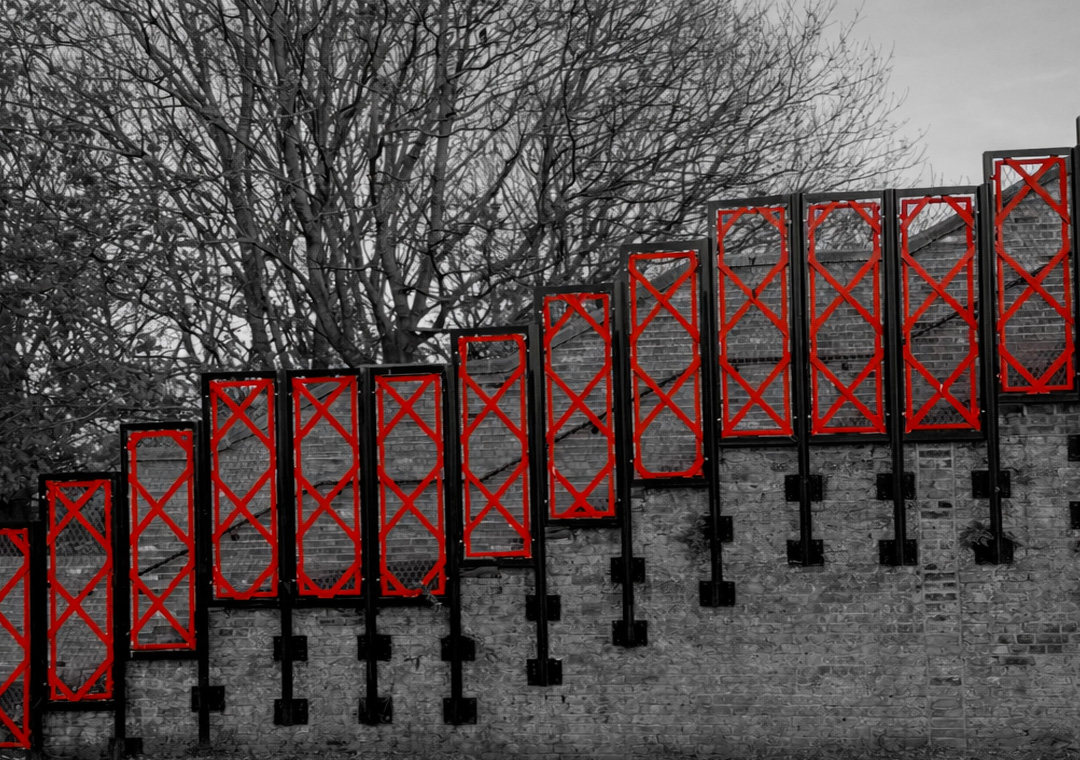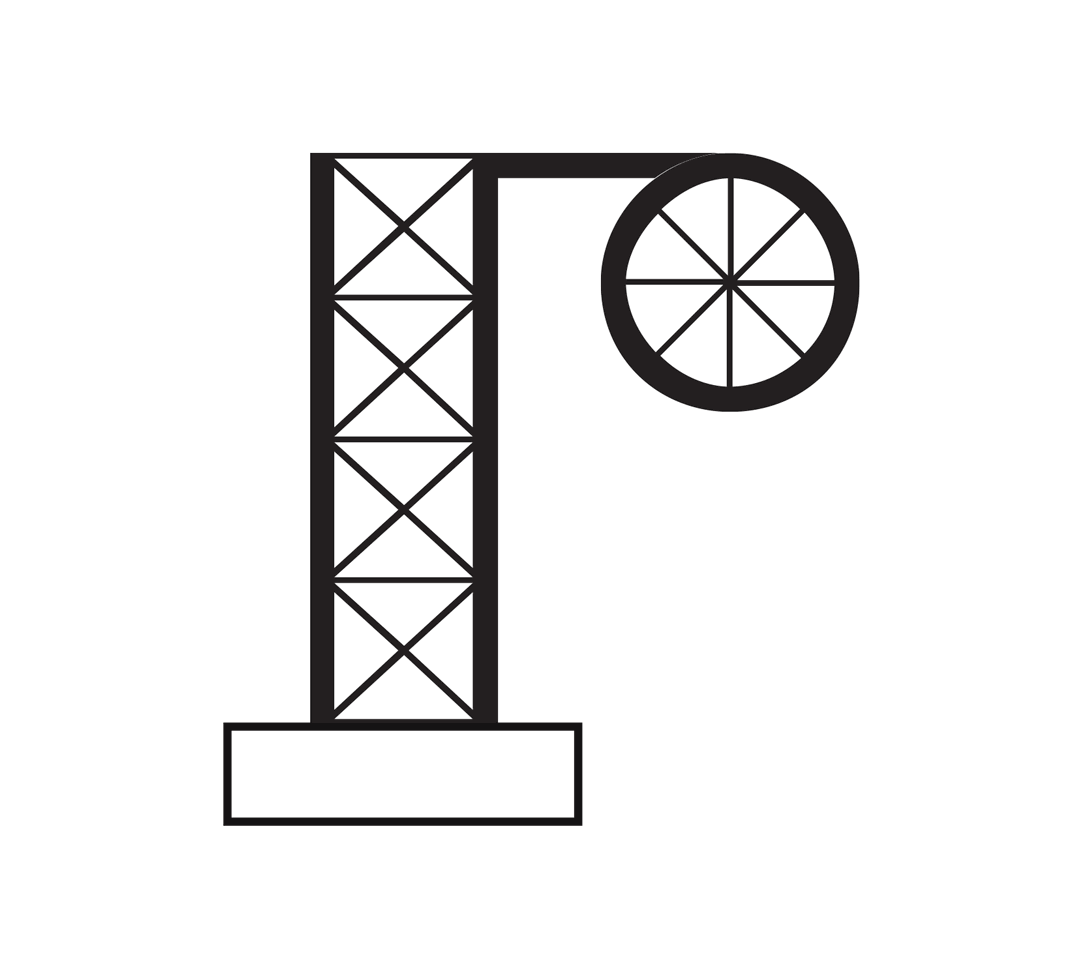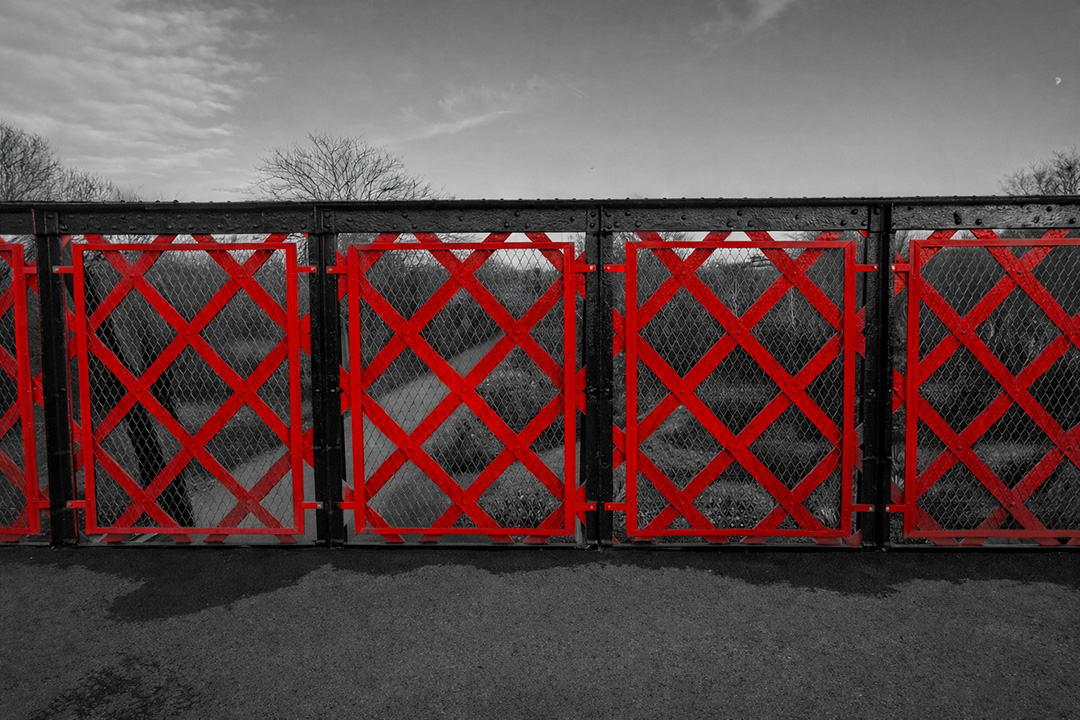
Situated in Burgess Park, the 'Old Canal Bridge,' often referred to by the local community as the 'Bridge to Nowhere,' is a distinctive landmark that enhances the park's atmosphere with colour and character. I was inspired by the bridge's many patterns. The diamond shapes formed by the truss structure are framed by black metal bars, providing a strong visual foundation for my typeface.
When the full alphabet is combined, it creates a visual language reminiscent of a busy construction site or industrial landscape, emphasising the development and drastic transformation of the park and its surrounding area over time.